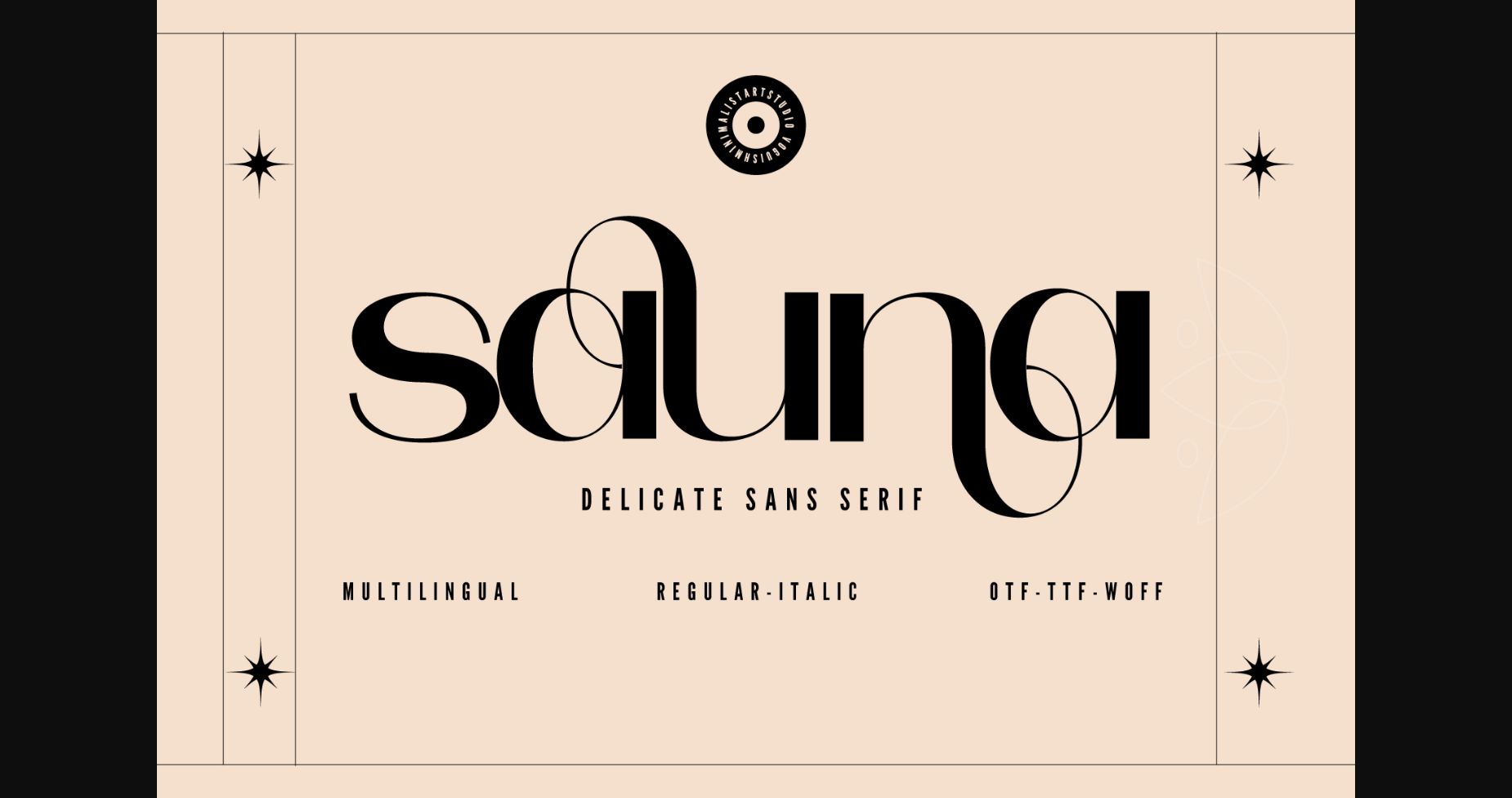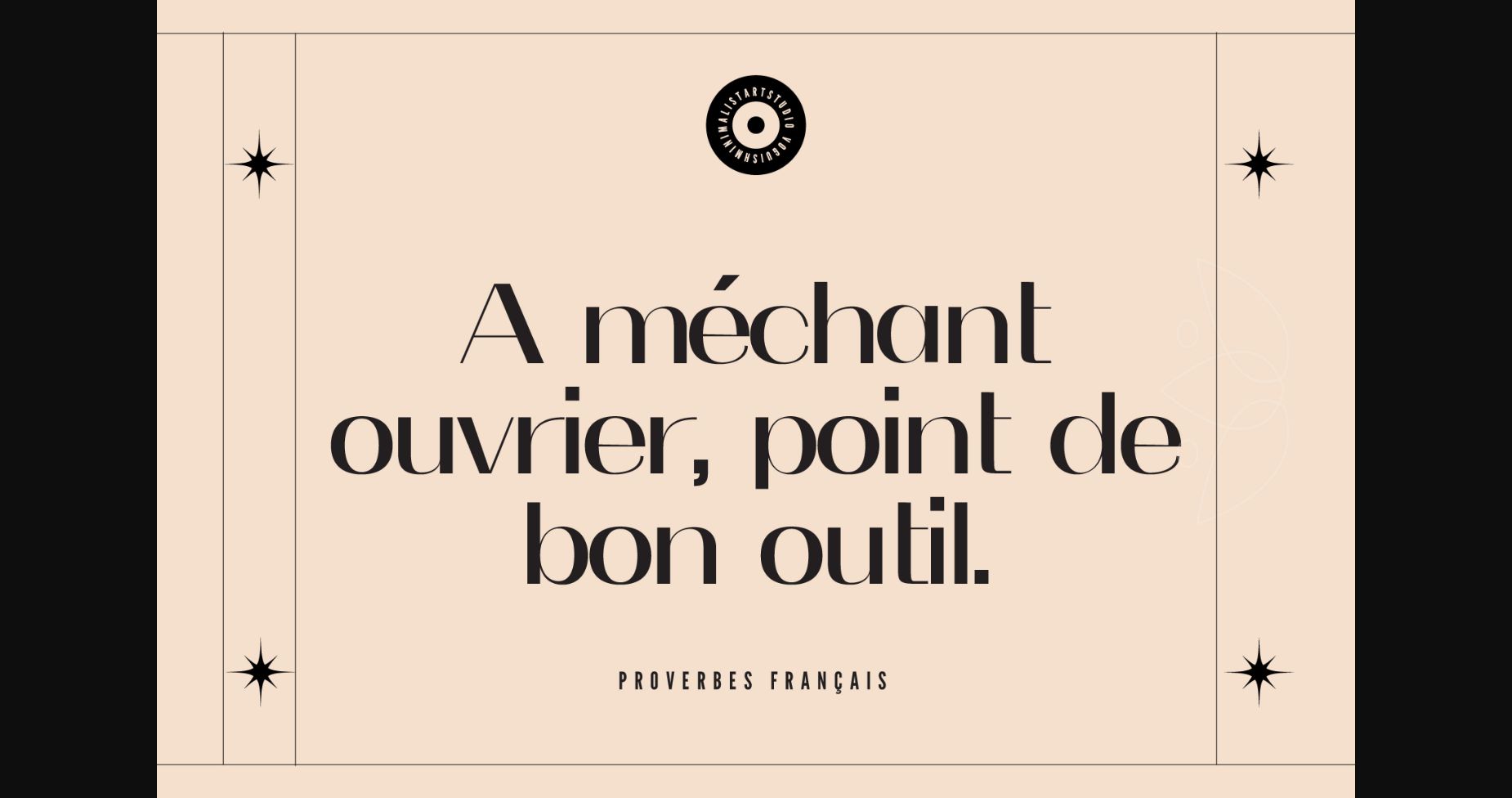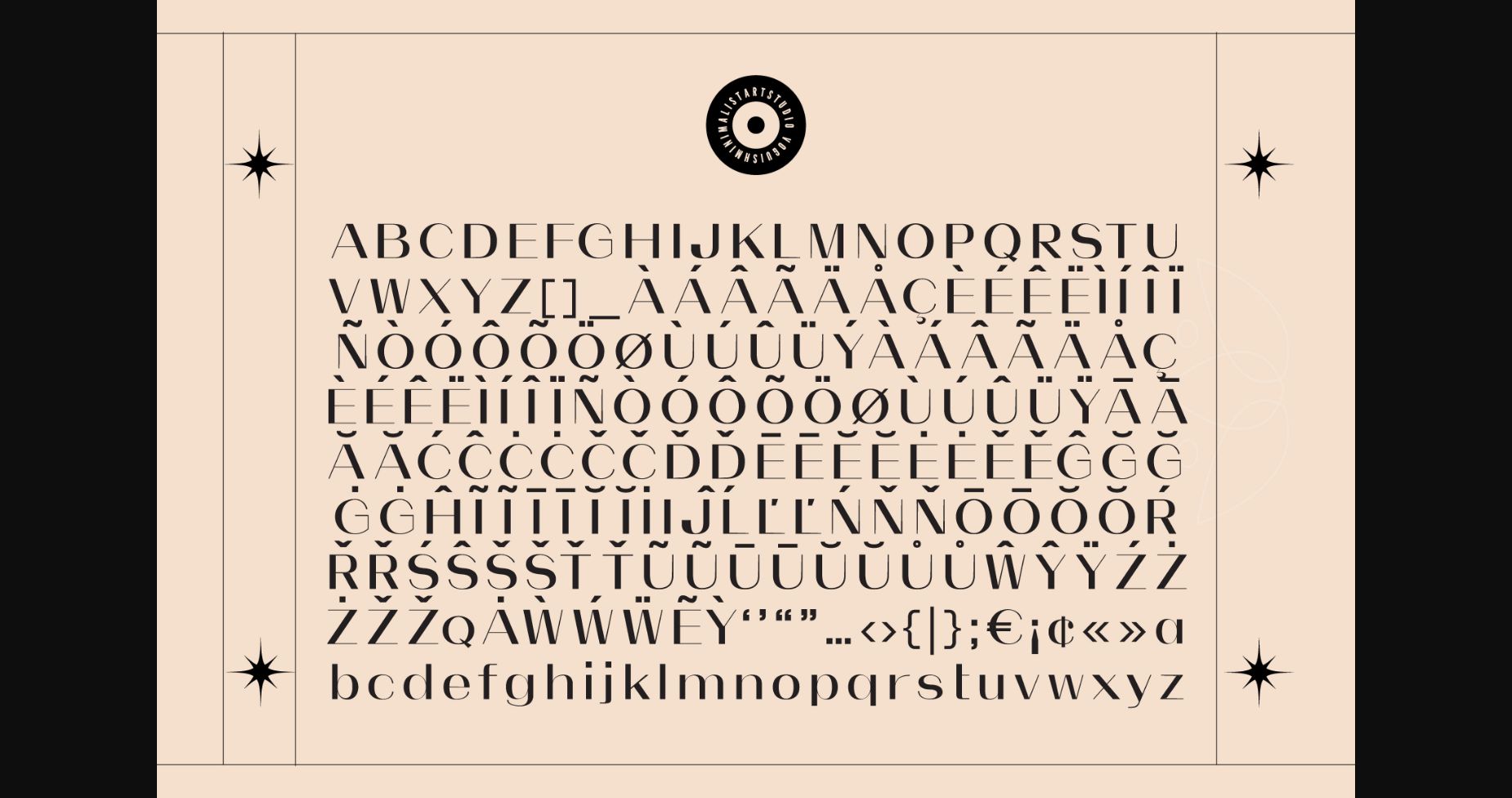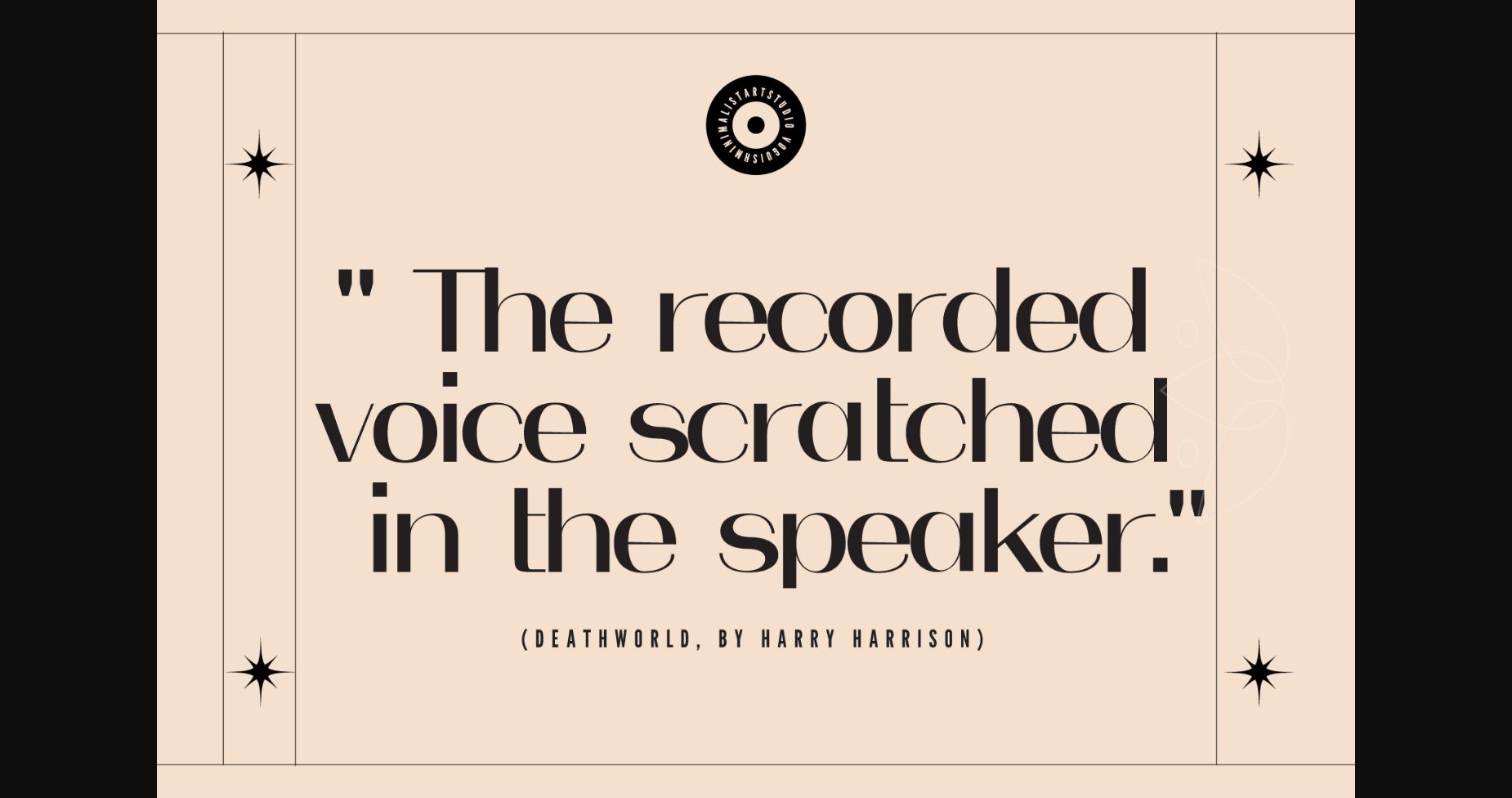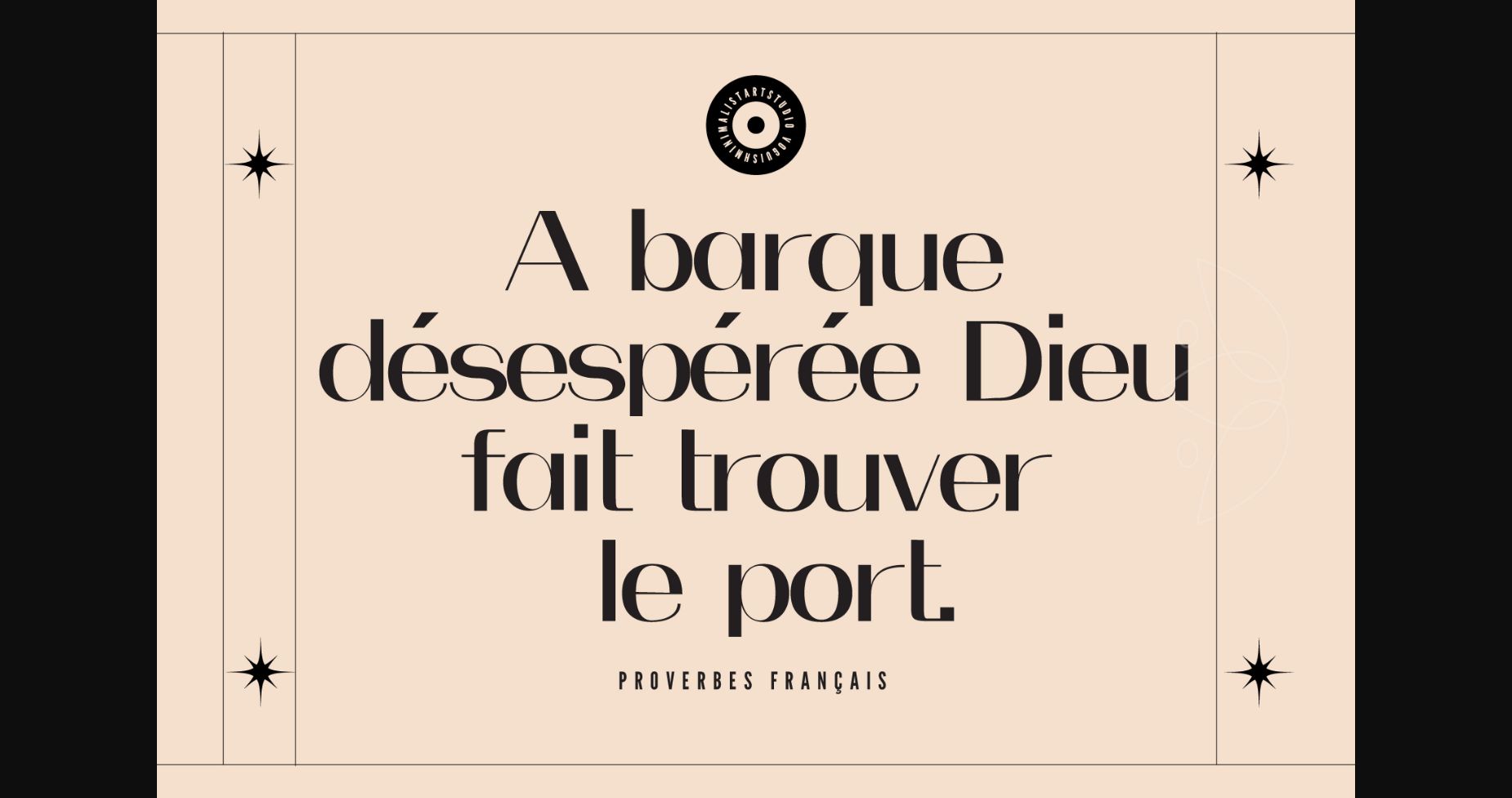
About Sauna Font
Sauna is the epitome of class and elegance in the world of typography. The clean lines and minimalistic approach of this font make it a popular choice for high-end brands, luxury fashion labels, and elegant websites. This chic and elegant sans-serif font will elevate any project and add a touch of class to your design work.